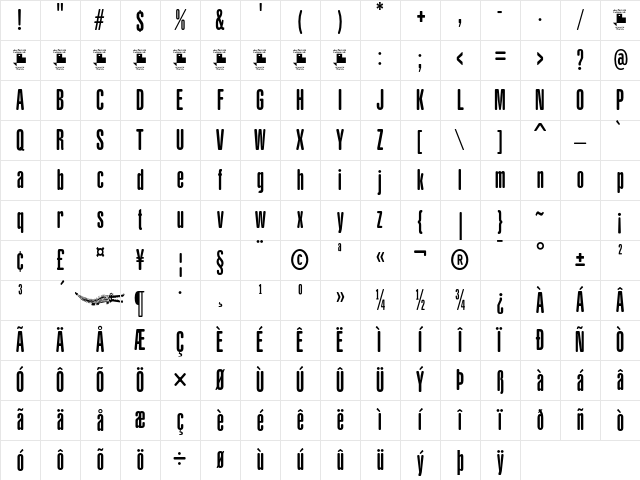
Complete Yacarena Ultra FFP Regular glyph index. Displaying only characters natively supported by Yacarena Ultra FFP Regular font.
Yacarena Ultra FFP is a composed and adaptable typeface that performs quietly and consistently across a wide range of design contexts.